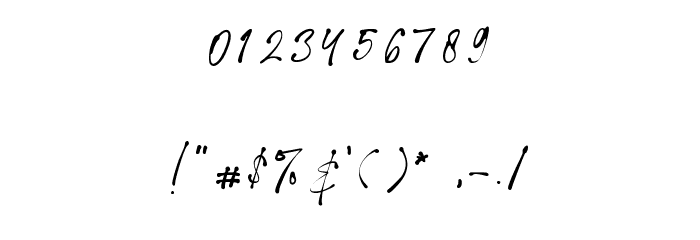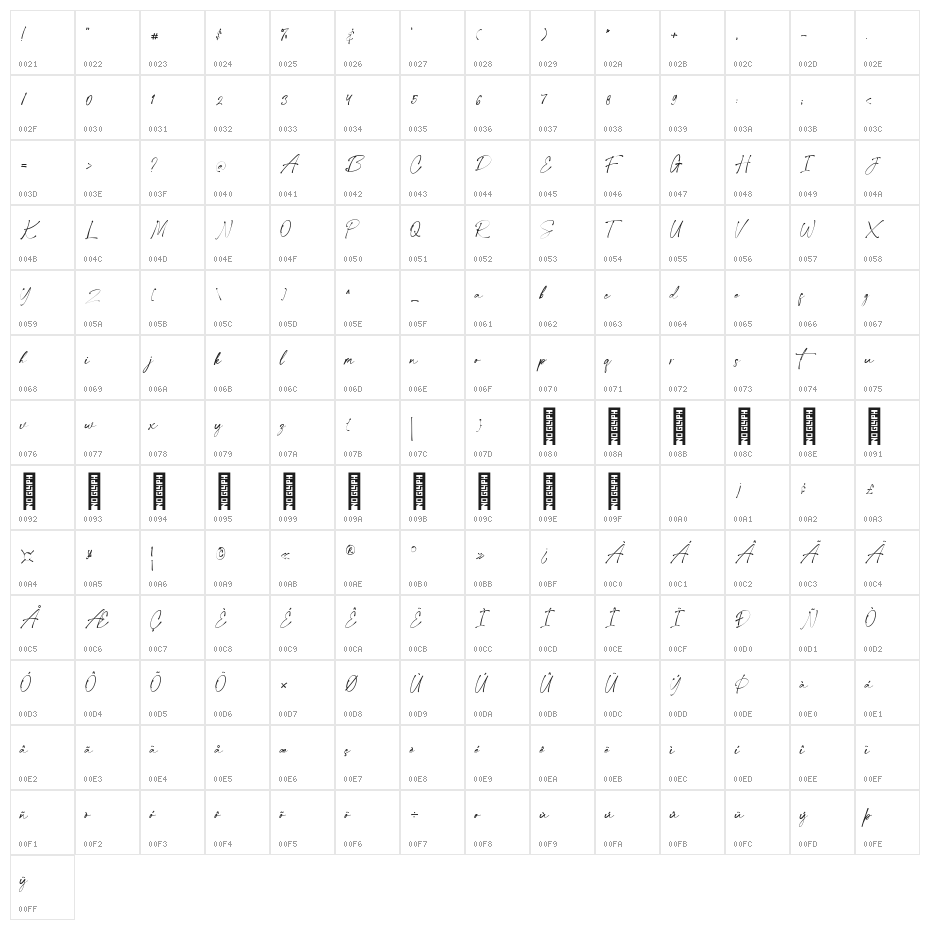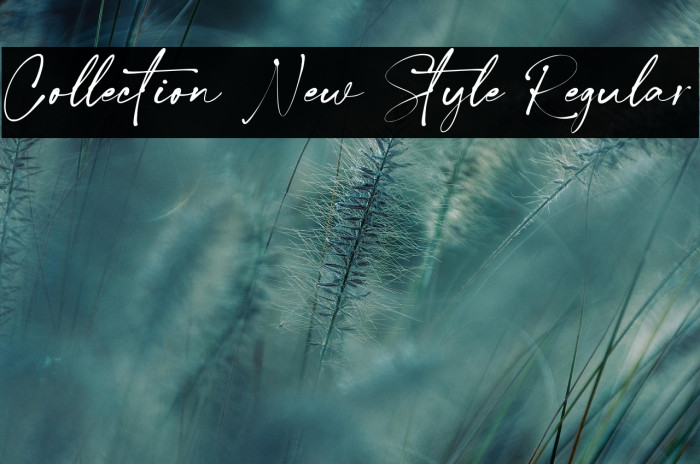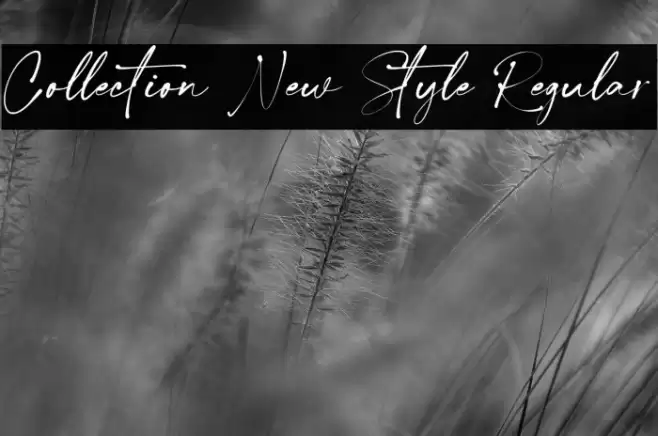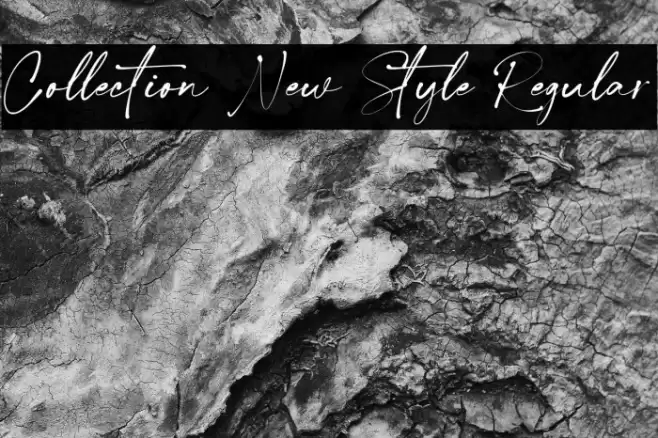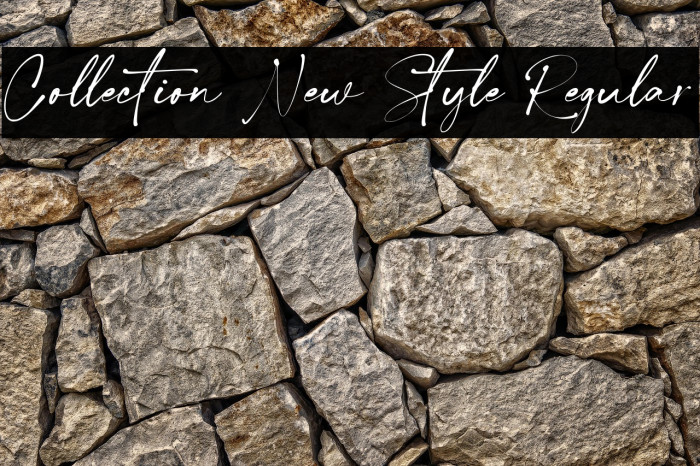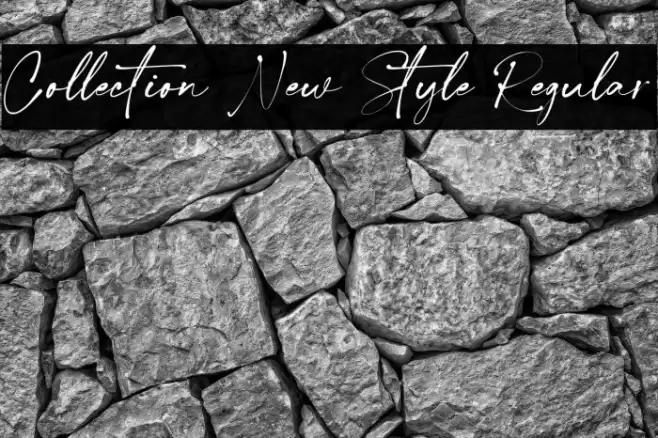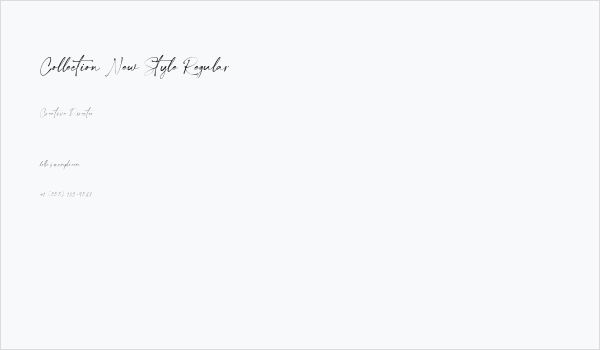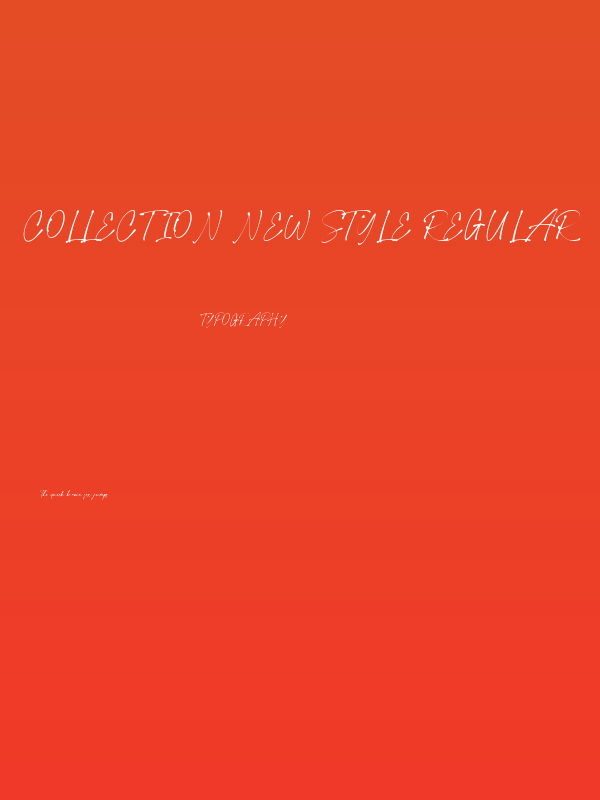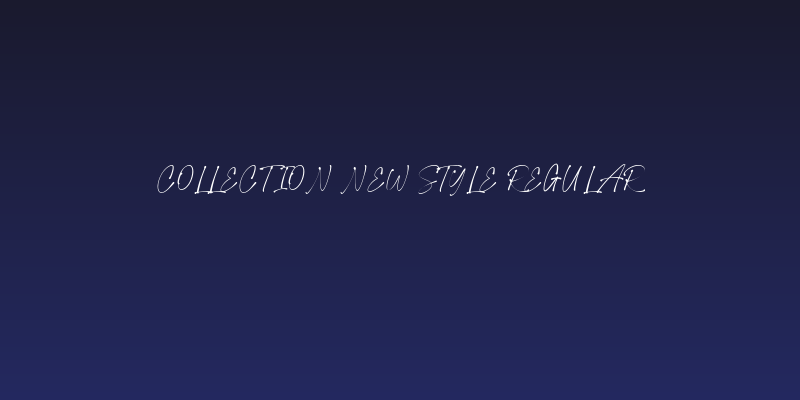
Collection New Style Regular Font
Collection New Style Regular Description
This elegant script font features a flowing, cursive style with a modern touch. The uppercase letters are tall and slightly slanted, giving a sense of movement and grace. The lowercase letters are more compact, maintaining a consistent rhythm that complements the uppercase. The numerals are stylish and blend seamlessly with the alphabet, while the special characters add a touch of sophistication. The strokes vary in thickness, providing a dynamic contrast that enhances readability while maintaining an artistic flair. This font is perfect for projects that require a personal, handwritten feel with a contemporary edge.
| Proposed Projects | Ideal for wedding invitations, greeting cards, branding, and elegant packaging. |